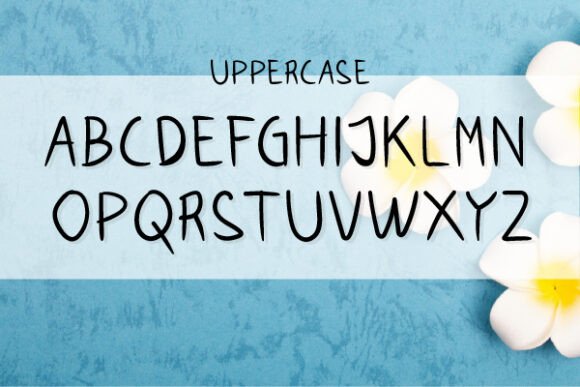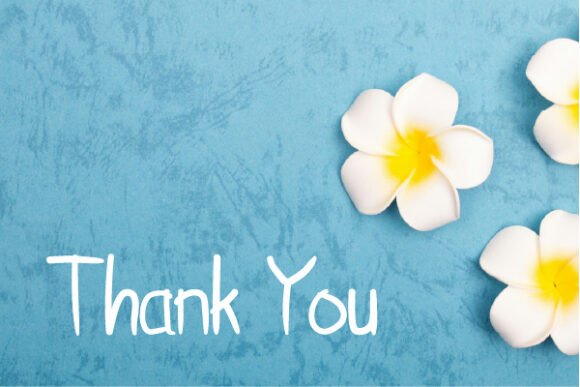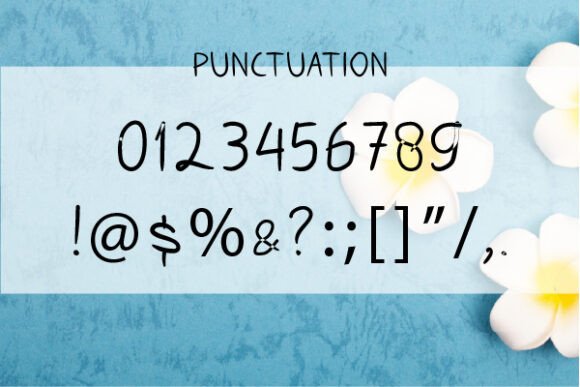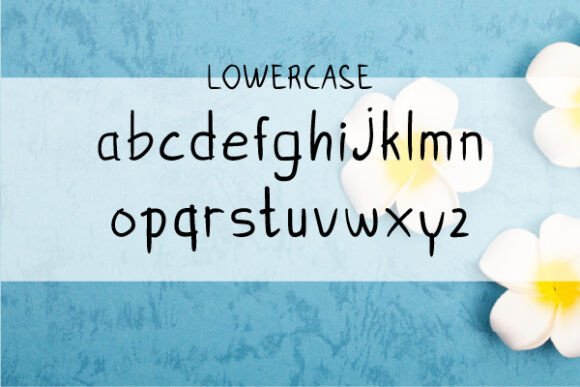
Introduction to Sketch on Font
Have you ever been brainstorming a creative project, only to be stuck on the perfect font to bring your vision to life? You scroll through font libraries, searching for the perfect combination of style and personality, but nothing seems quite right. That’s where Sketch on Font comes in – a beautiful, handwritten sans serif font designed to add a touch of elegance and whimsy to any project.
As a designer, you know that the right font can make all the difference in capturing the essence of your creative vision. With Sketch on Font, you’ll be able to add a high-quality, transparent background to your designs, making them perfect for a wide range of applications – from back to school and wedding invitations to social media posts and posters.
Honest Review: Sketch on Font
As a designer, I’ve had my fair share of fonts, but Sketch on Font has caught my attention lately. This font is a great addition to any creative project, offering a unique and stylish look that’s hard to resist.
What I love about Sketch on Font is its high quality and versatility. It’s perfect for designers who want to add a touch of modernity to their work. The font is available for free download, which is a major plus in my book. I appreciate the transparency of the font’s background, making it easy to work with.
- High quality and modern design
- May not be suitable for formal or traditional designs
- Some users may find the font too trendy or overused
Overall, I’m impressed with Sketch on Font. It’s a great design resource that can elevate any creative project. While it may not be perfect for every design need, it’s definitely worth checking out.